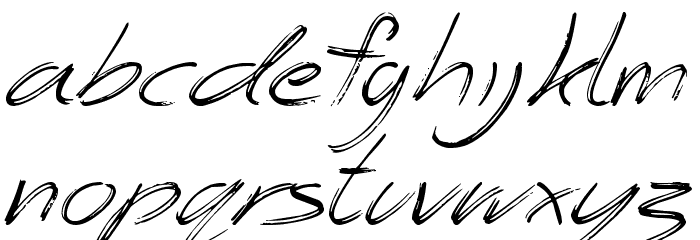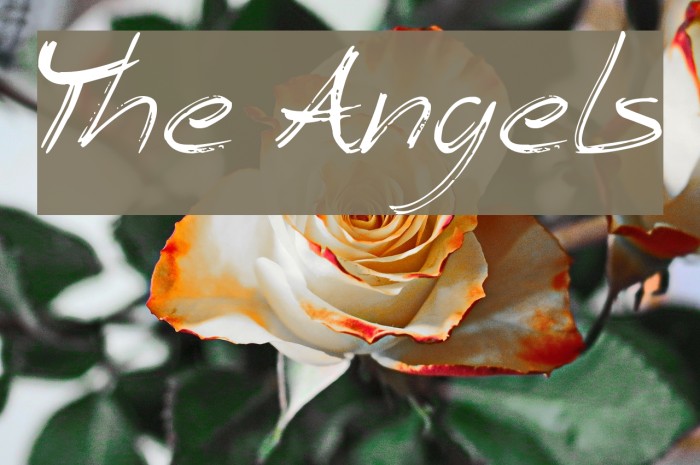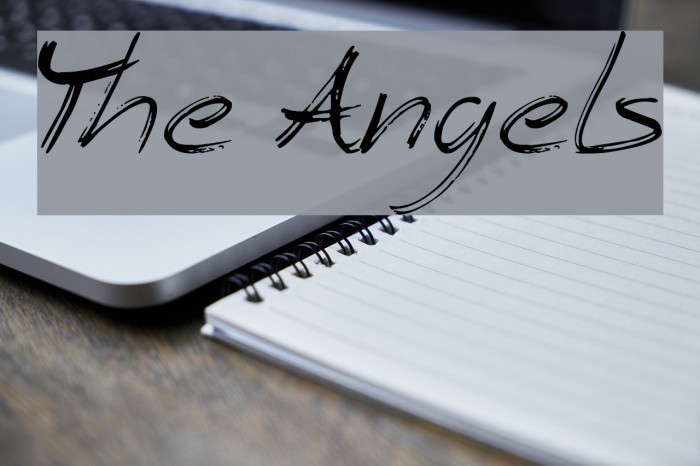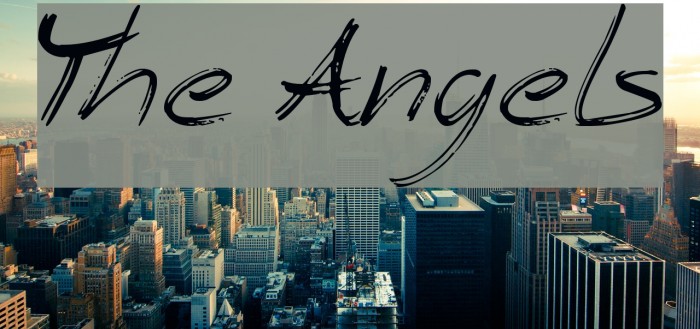
The Angels Font
This font features a dynamic and expressive script style, characterized by its bold, sweeping strokes and a hand-drawn appearance. The letters exhibit a sense of movement and energy, with varying stroke thicknesses that create a textured, brush-like effect. The uppercase and lowercase letters are designed with a consistent flow, maintaining a cohesive look throughout. The font's artistic flair makes it suitable for creative and impactful designs, where a personal touch is desired. The overall appearance is both modern and artistic, making it a versatile choice for various design projects.
A dynamic, brush-style script font with bold, expressive strokes.
- Proposed Projects: Ideal for branding, logos, posters, and artistic projects requiring a personal touch.
- Category: Script
- Overall Style: Modern, Artistic